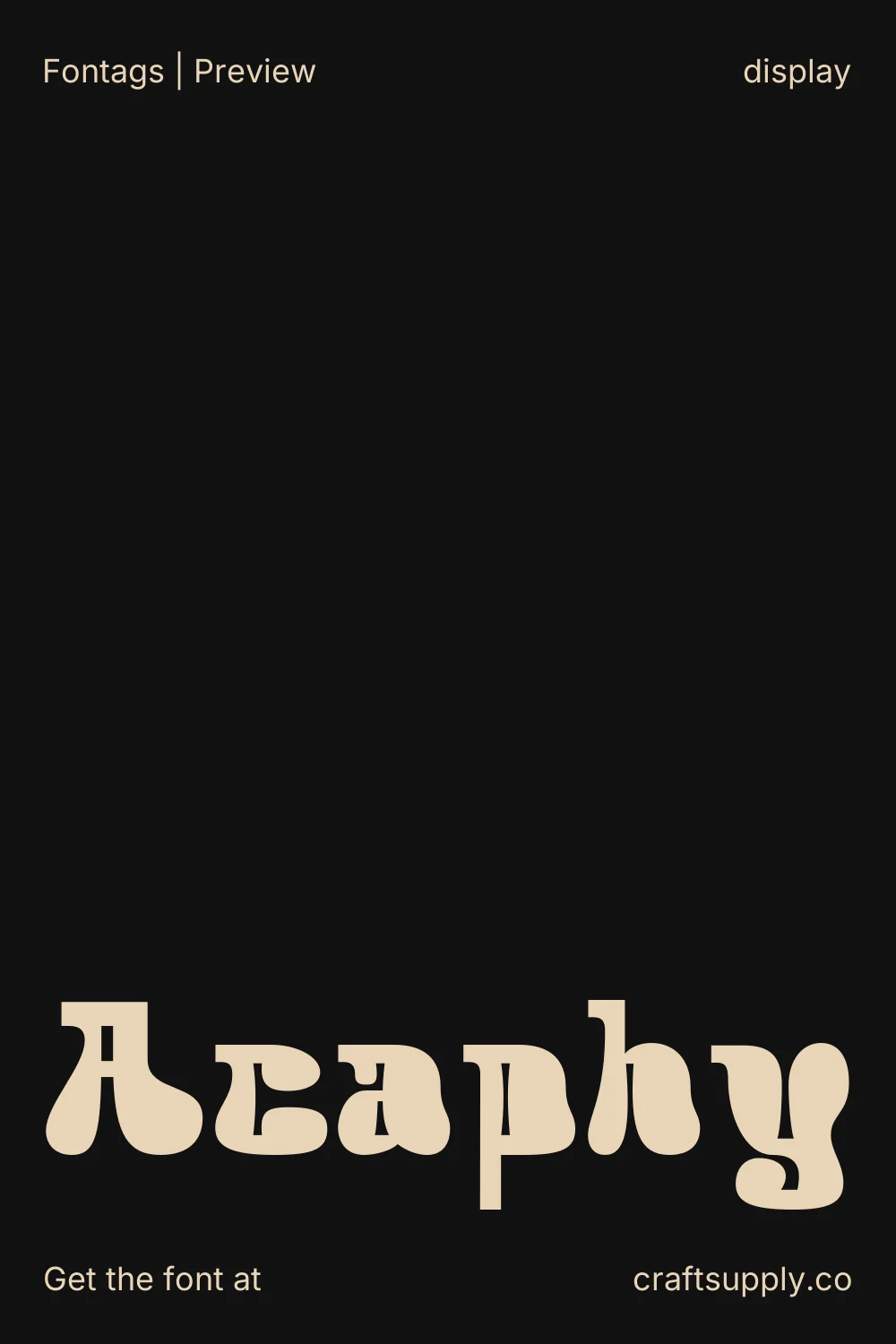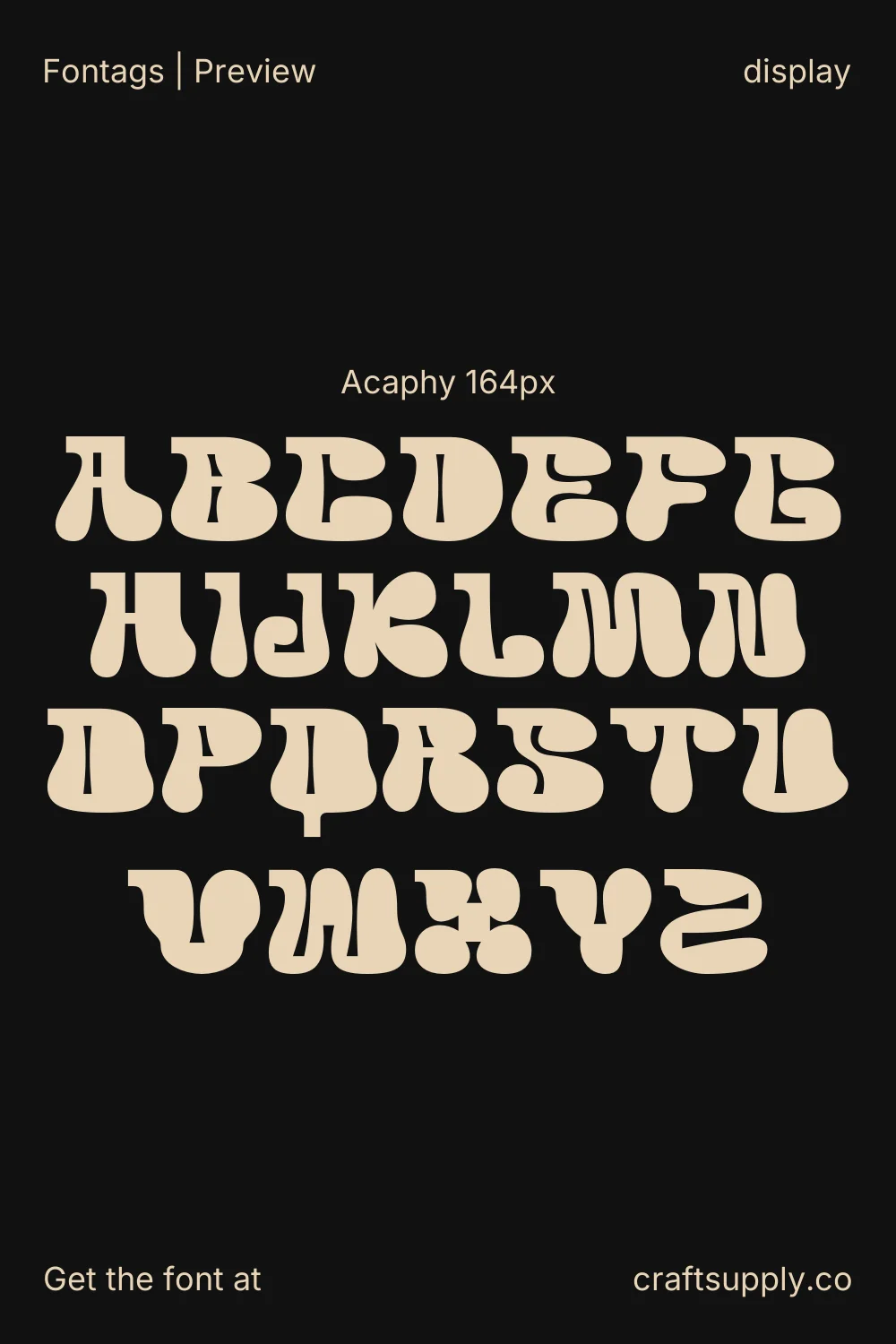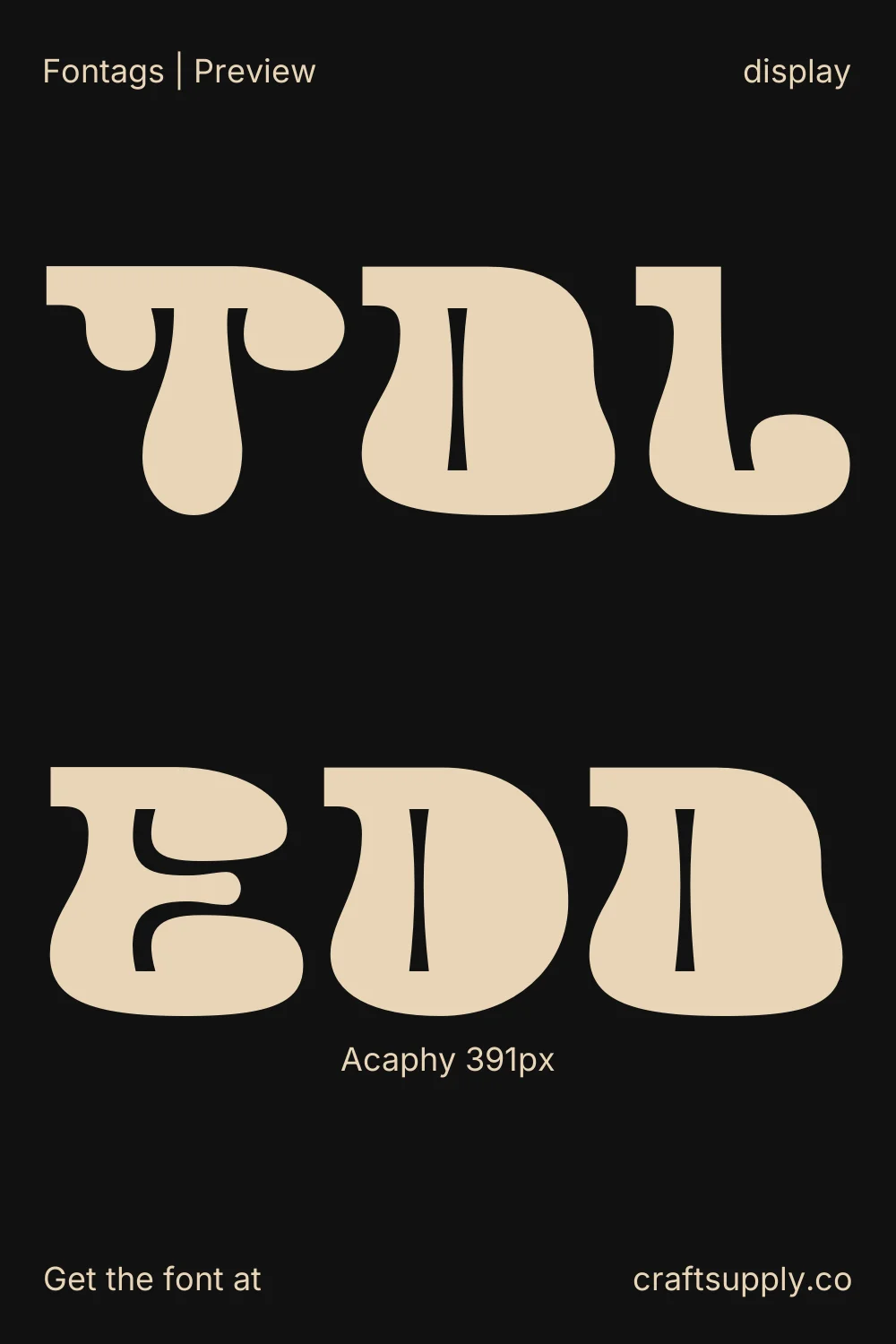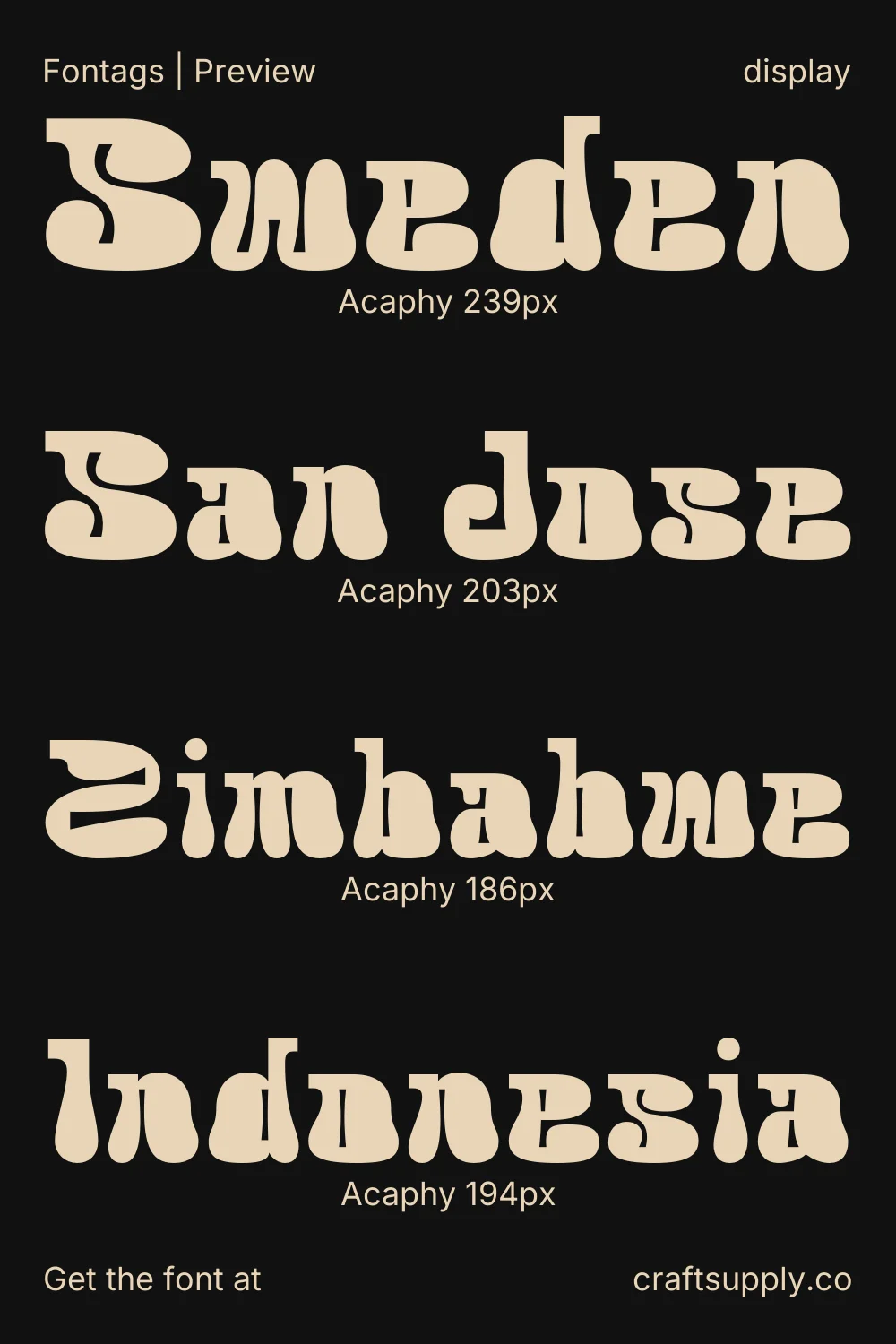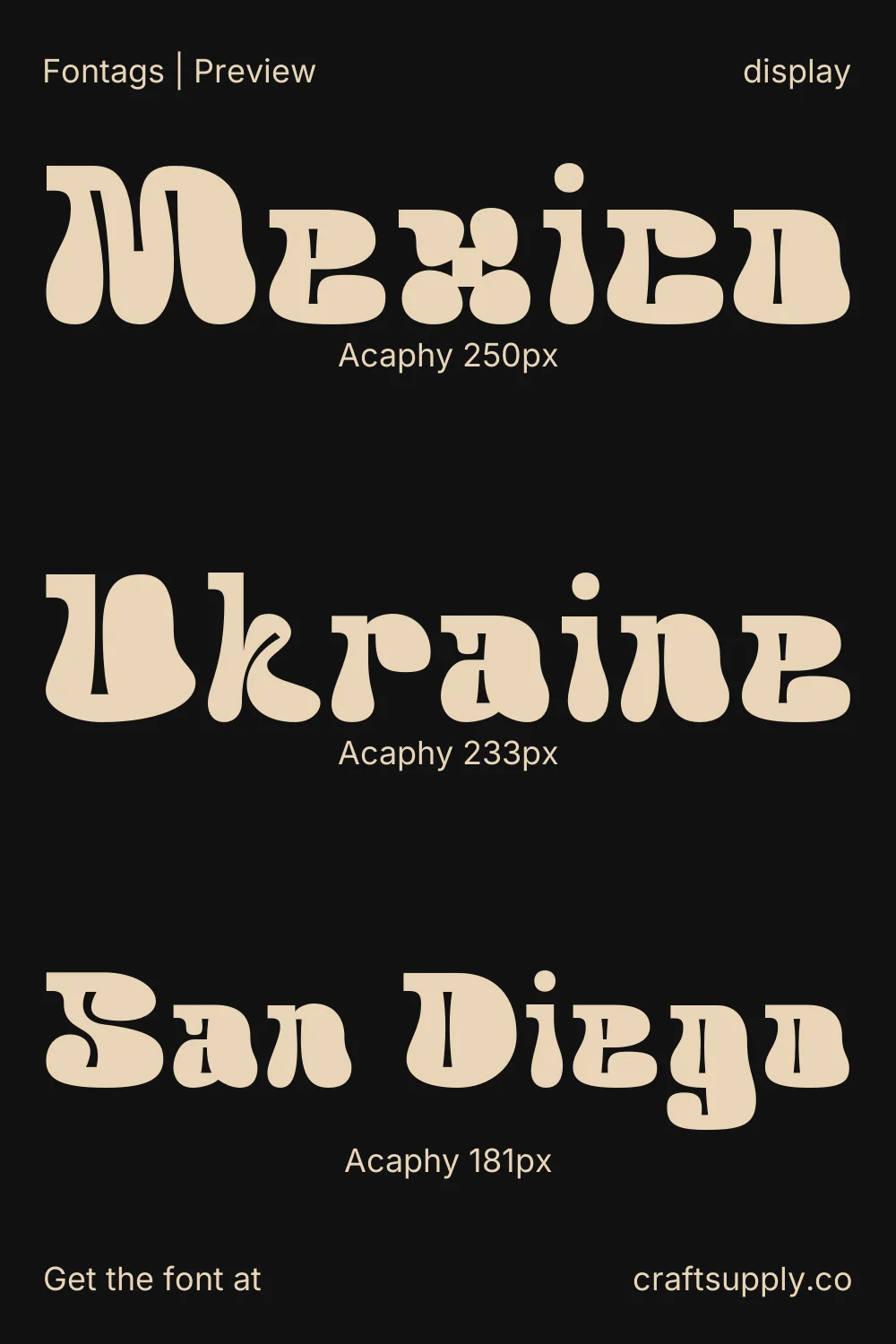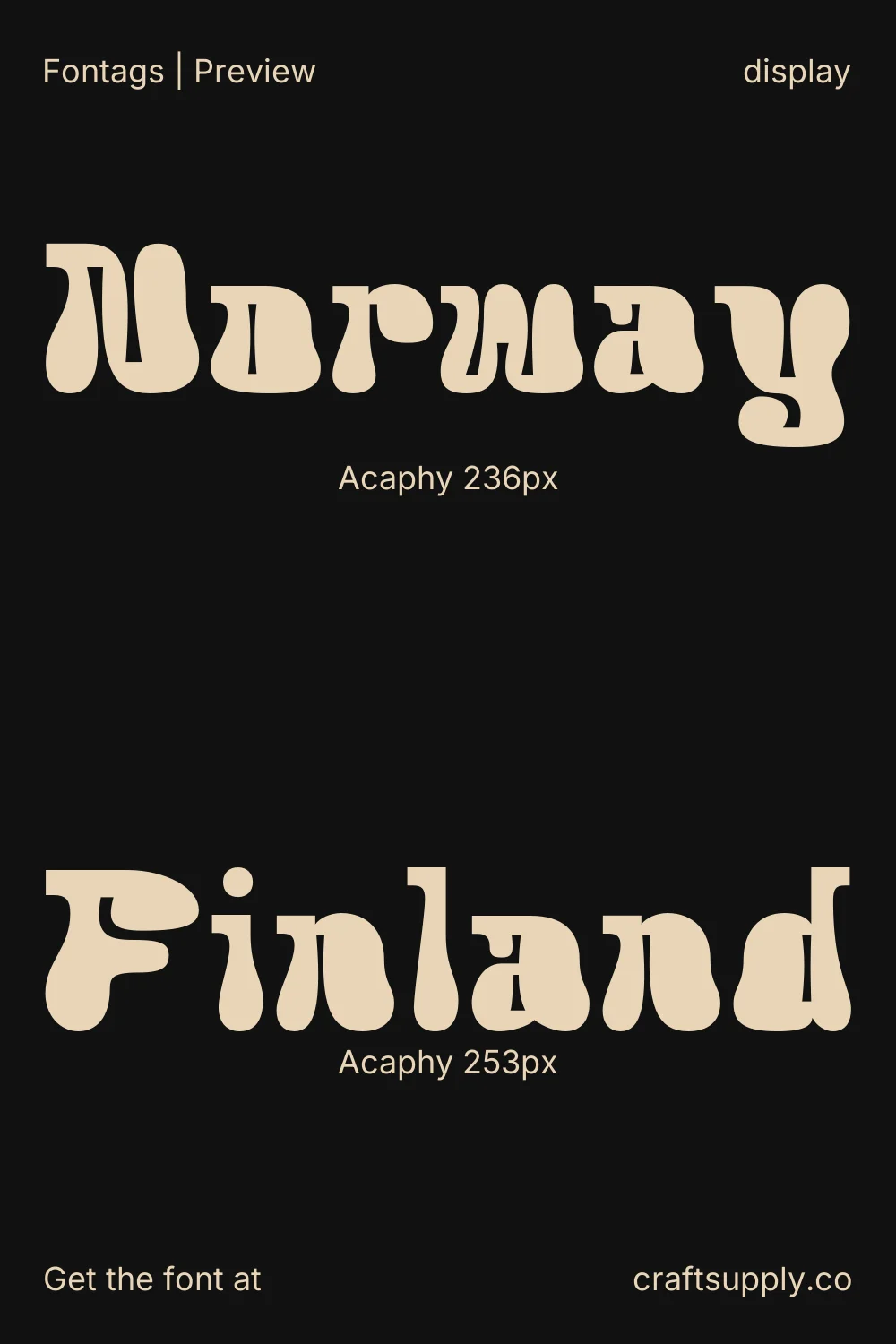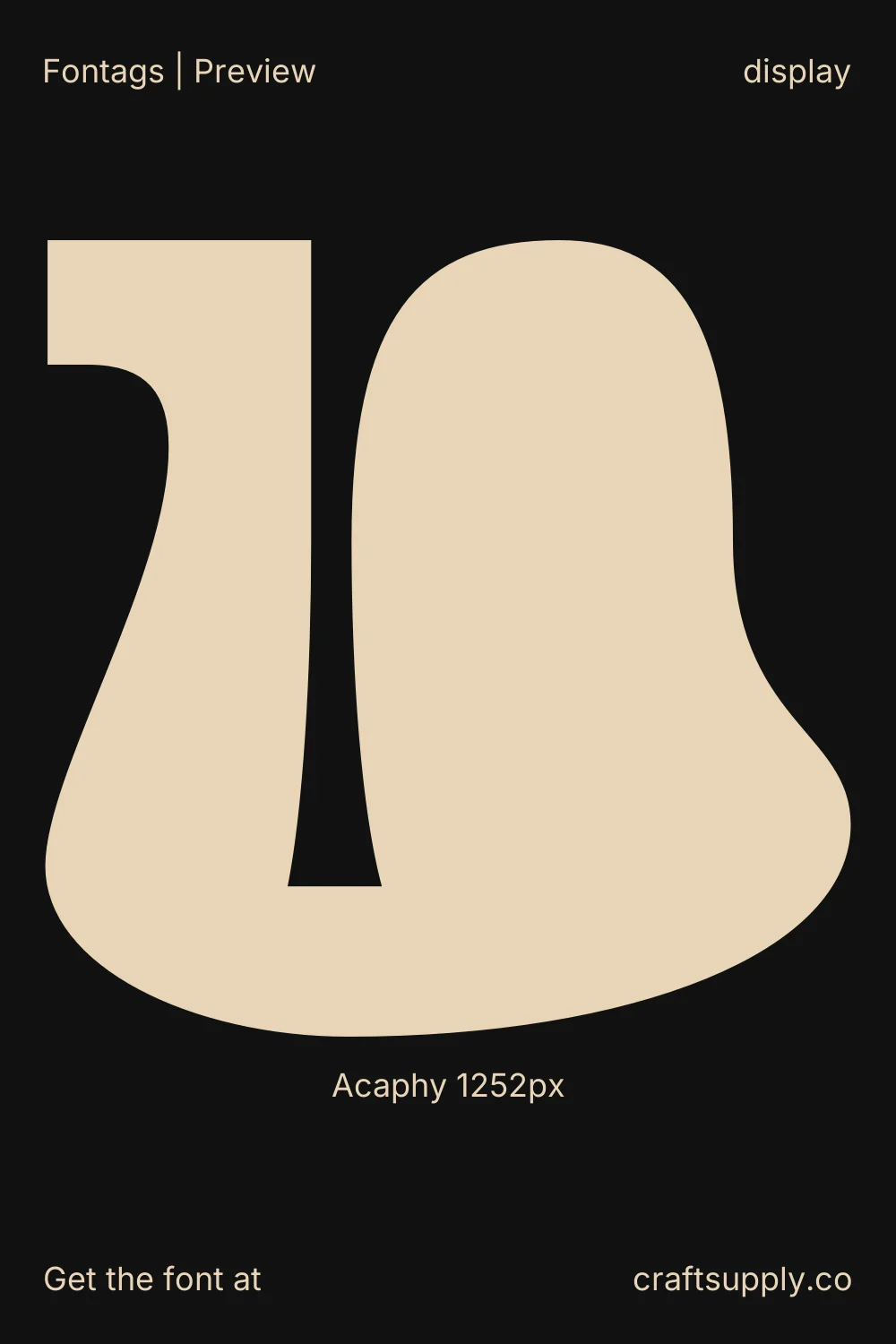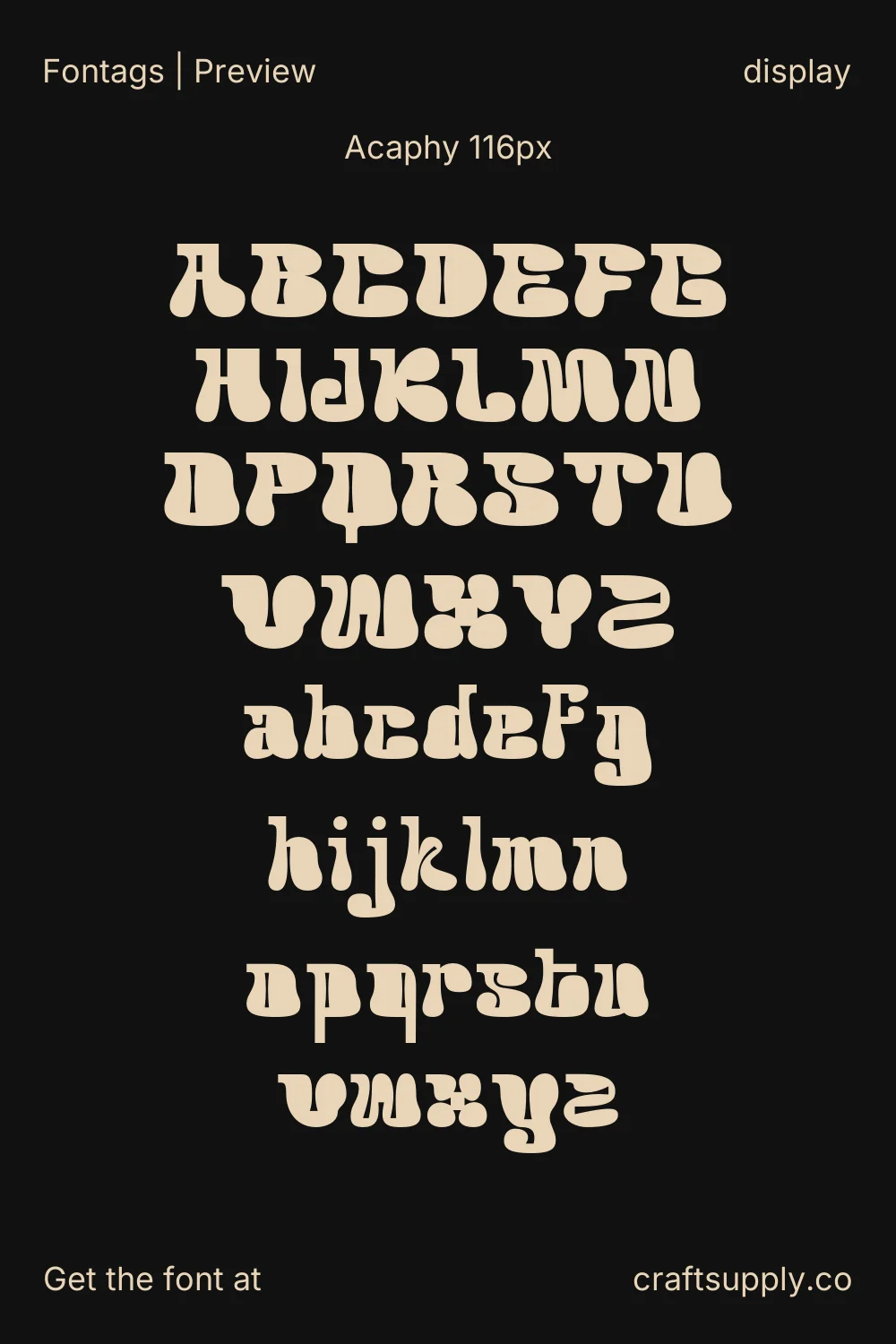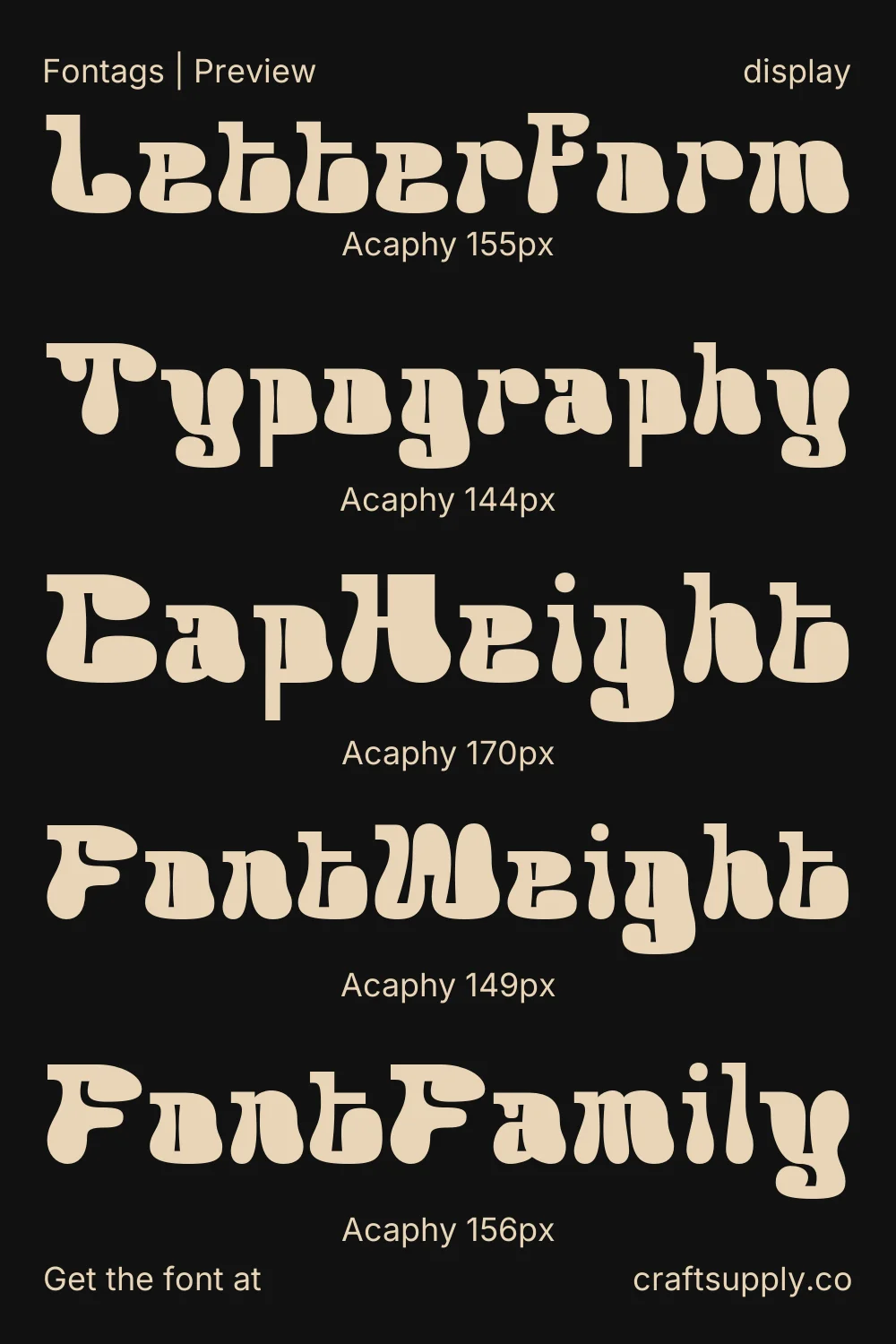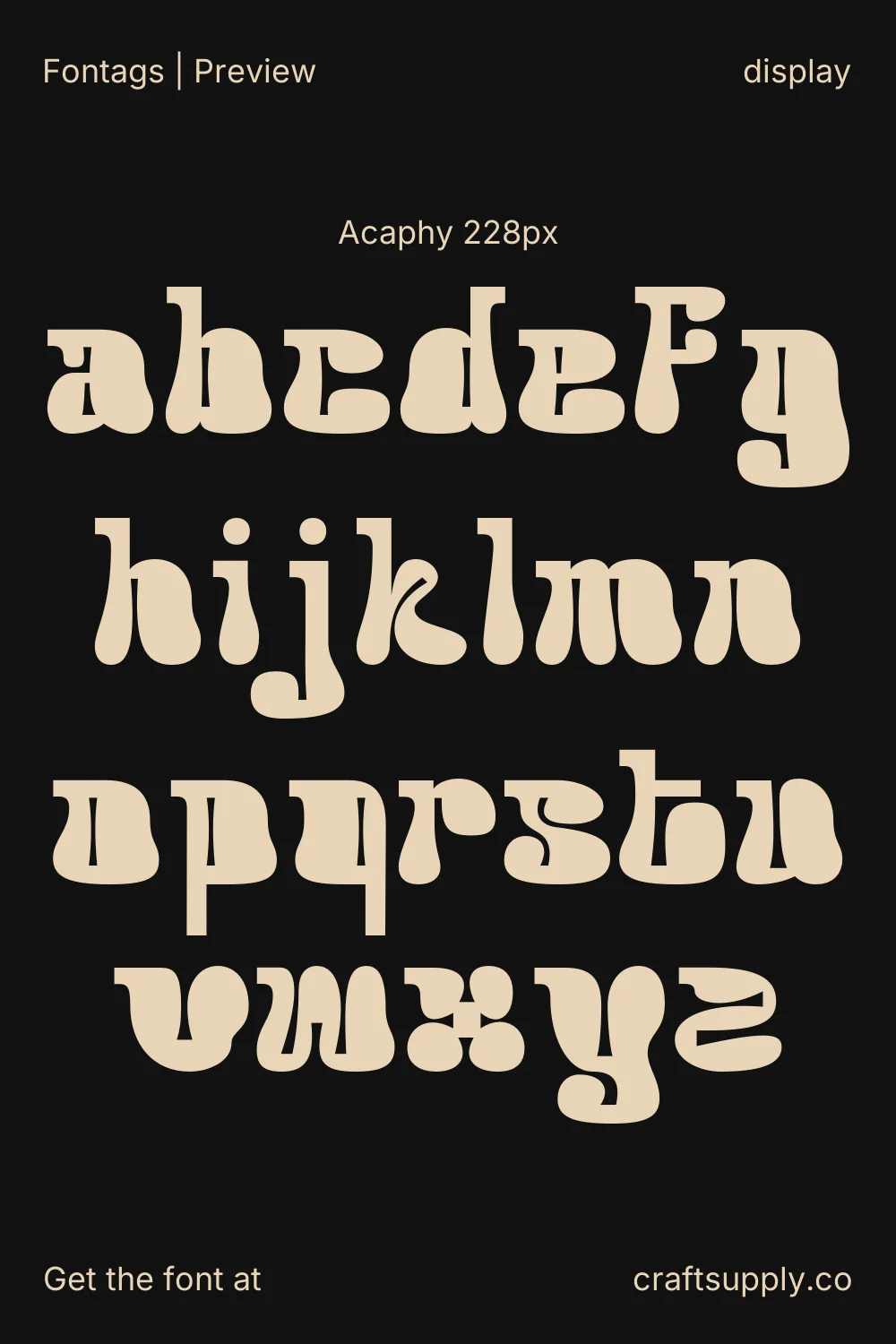
Acaphy
Acaphy Bubble Font features bubbly, rounded characters that bring a playful and joyful feel to children's projects. Its clear letterforms ensure readability for young readers, making it ideal for educational materials, invitations, posters, and website headers. The font's whimsical bubble-inspired design captures the carefree spirit of childhood fun.